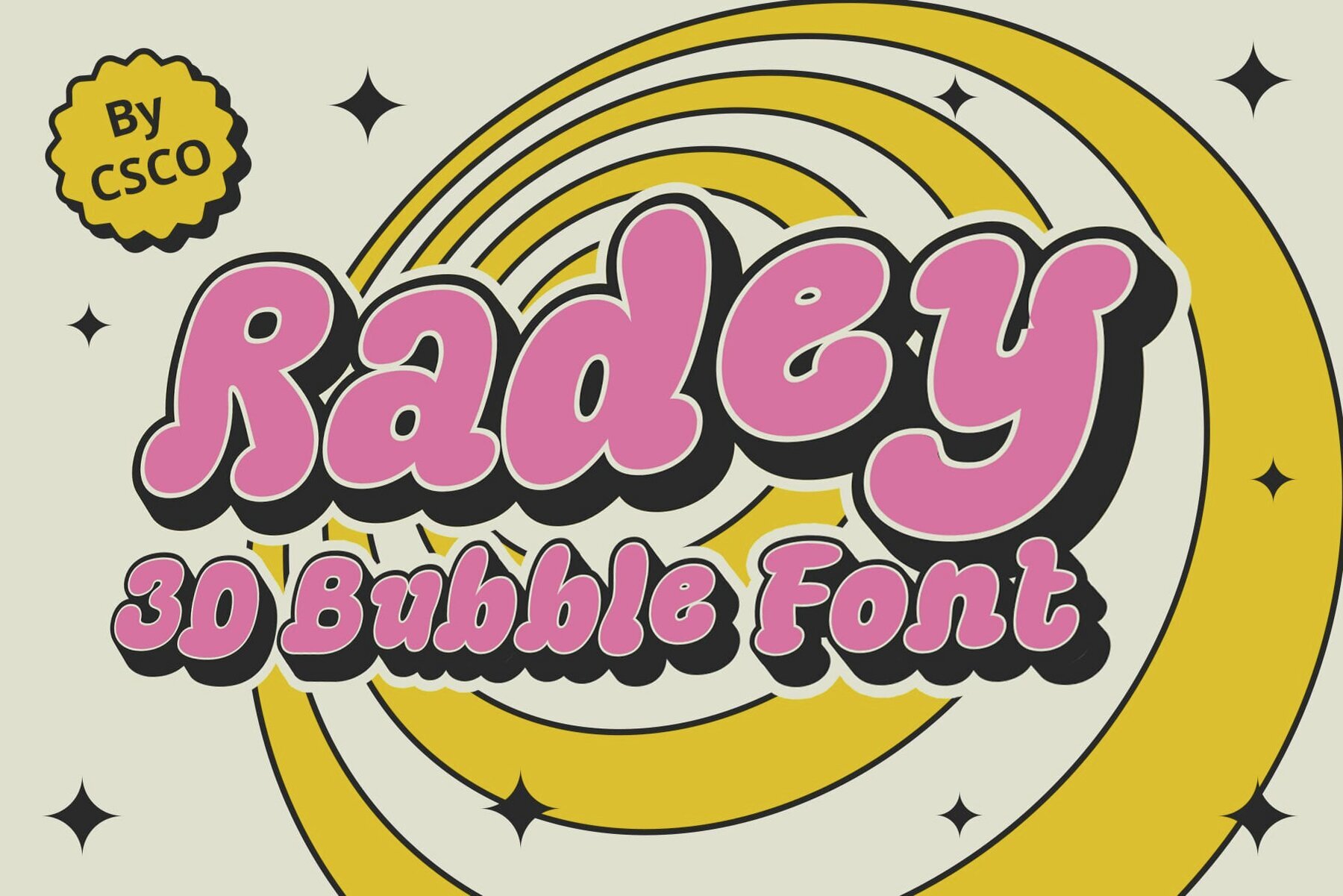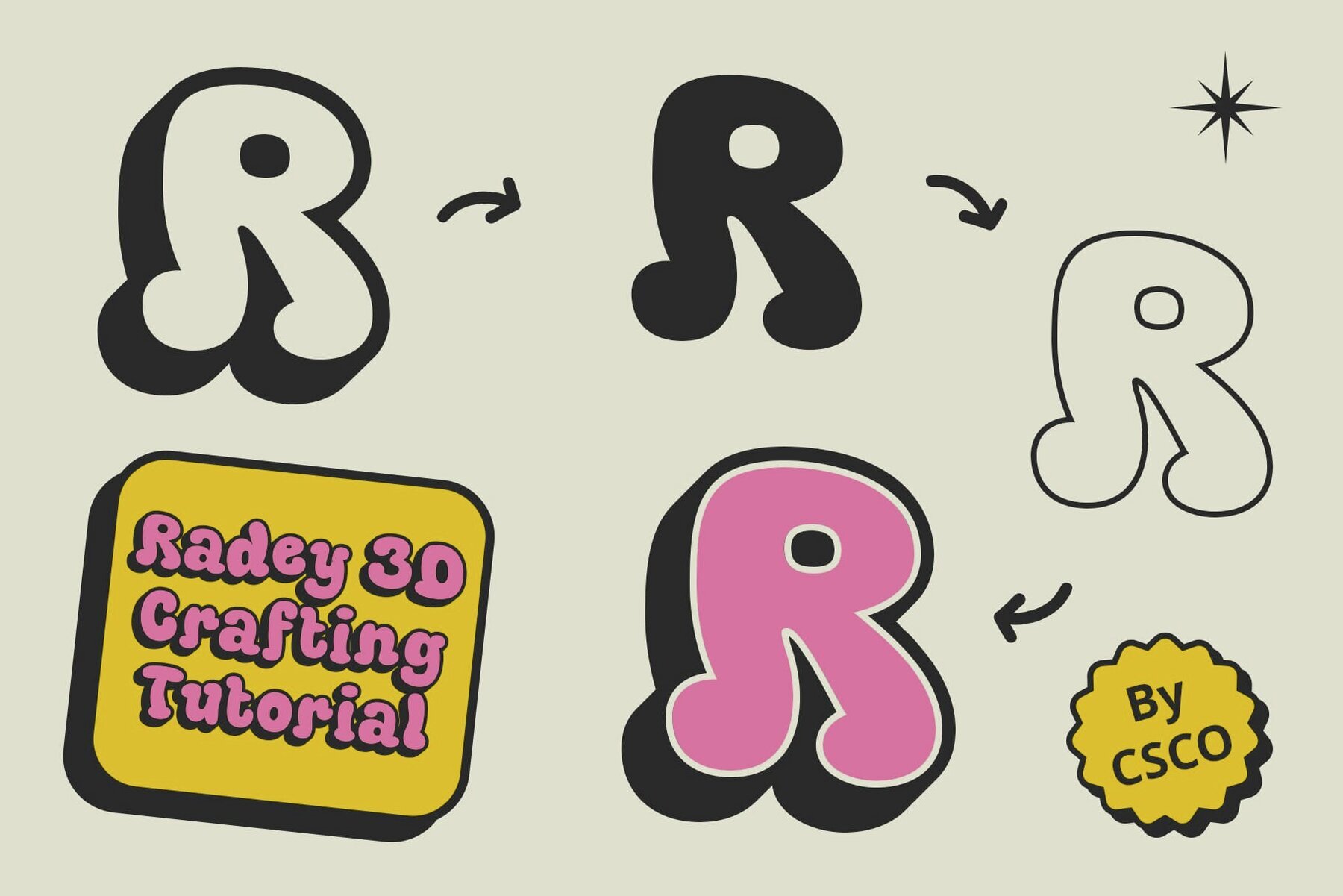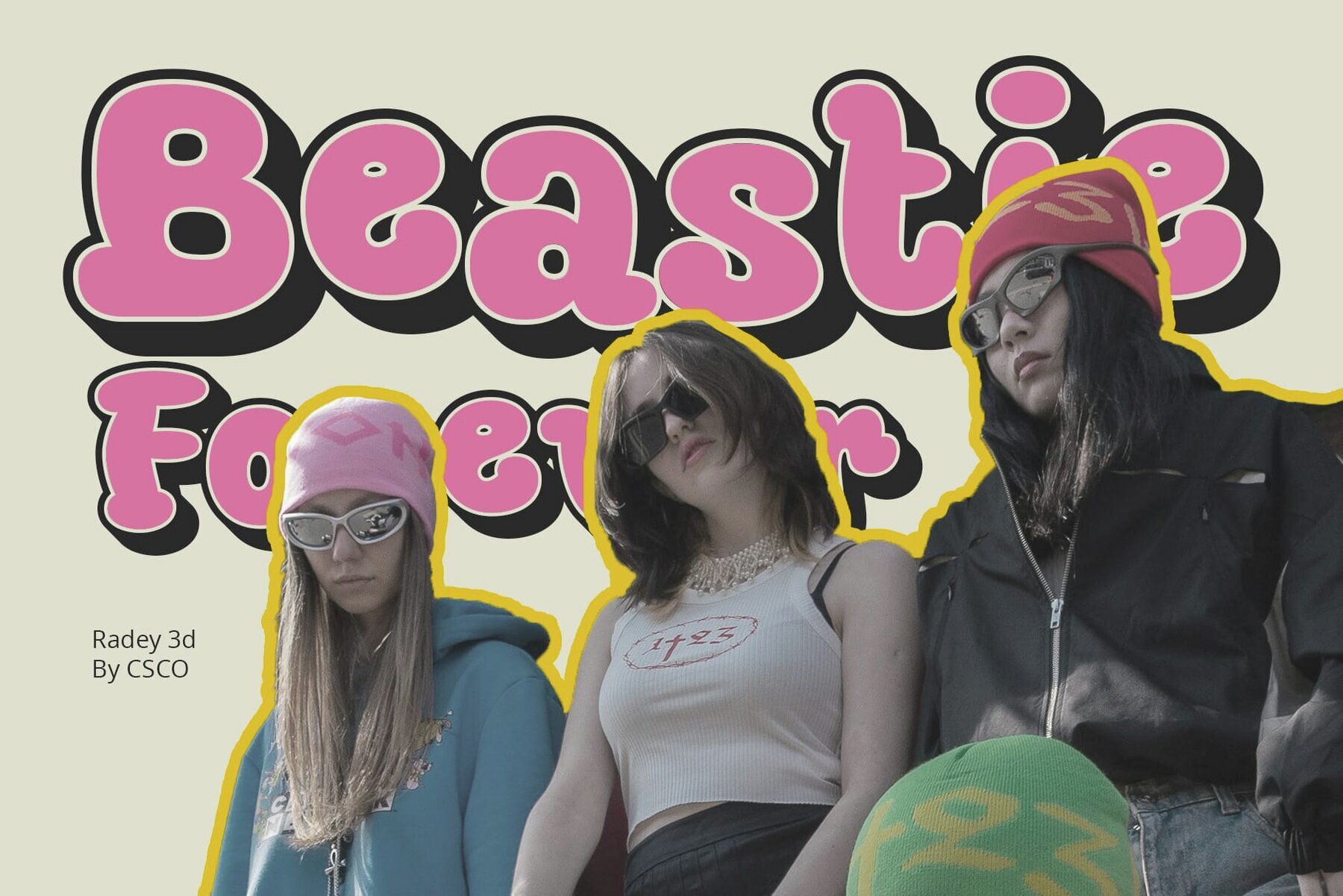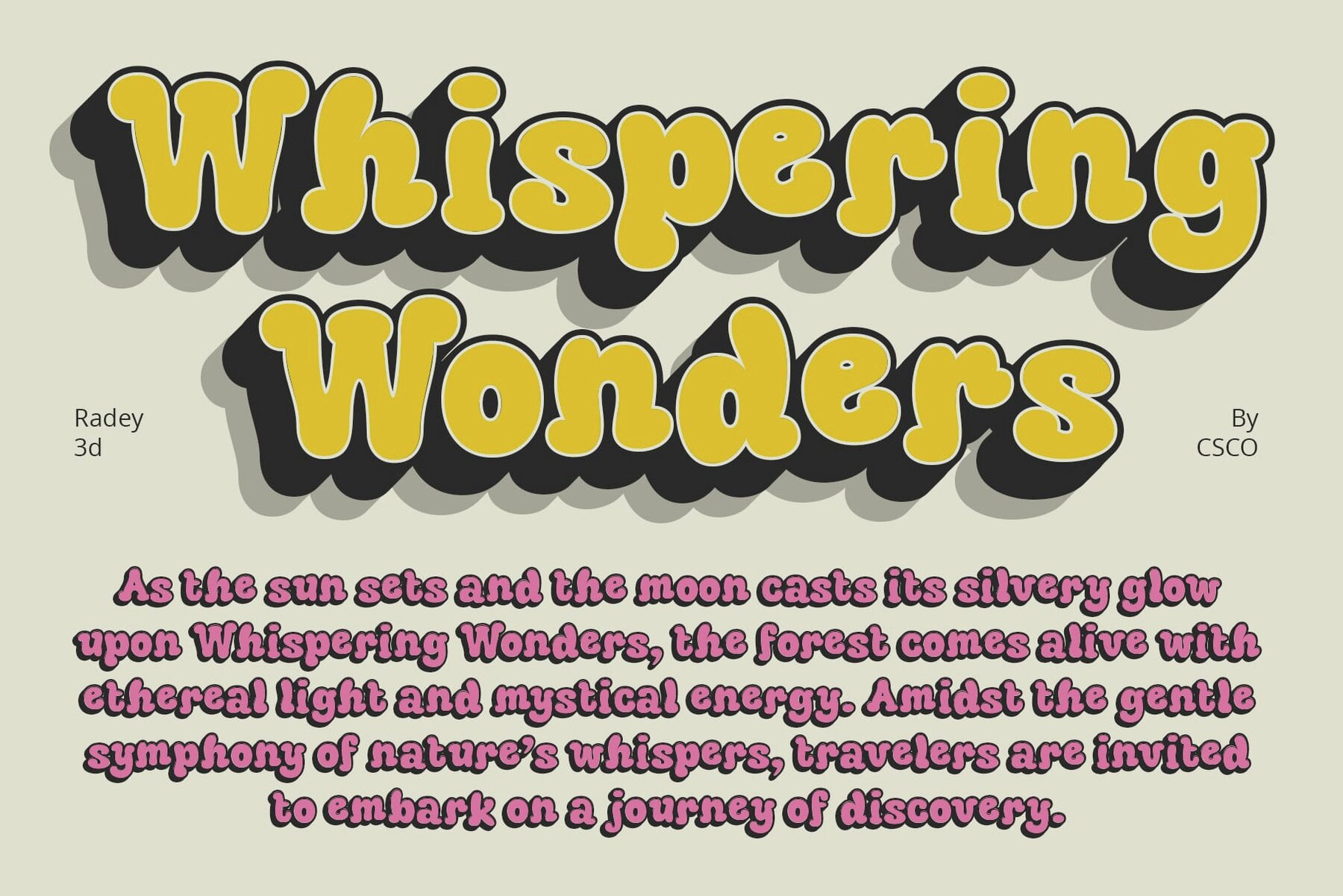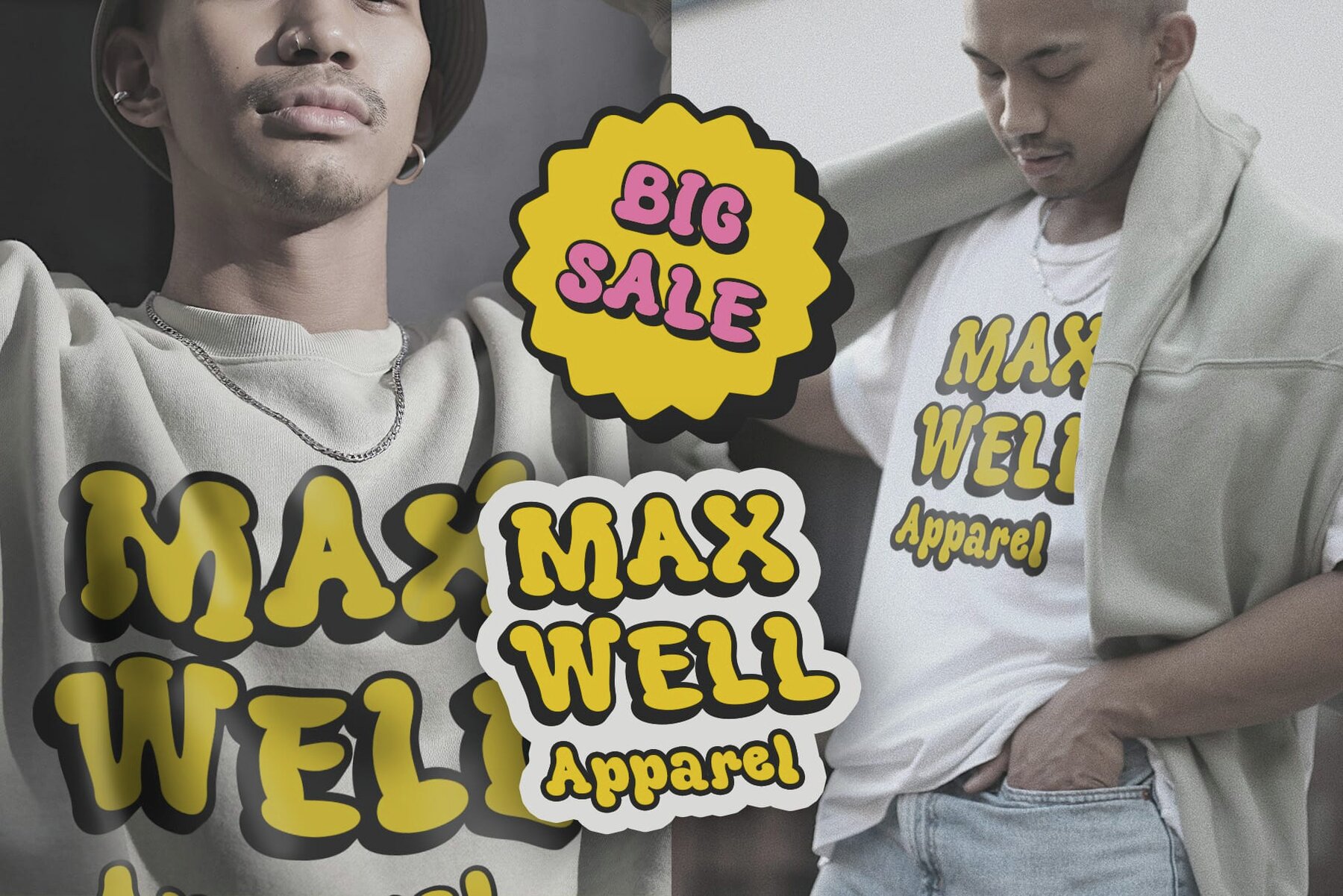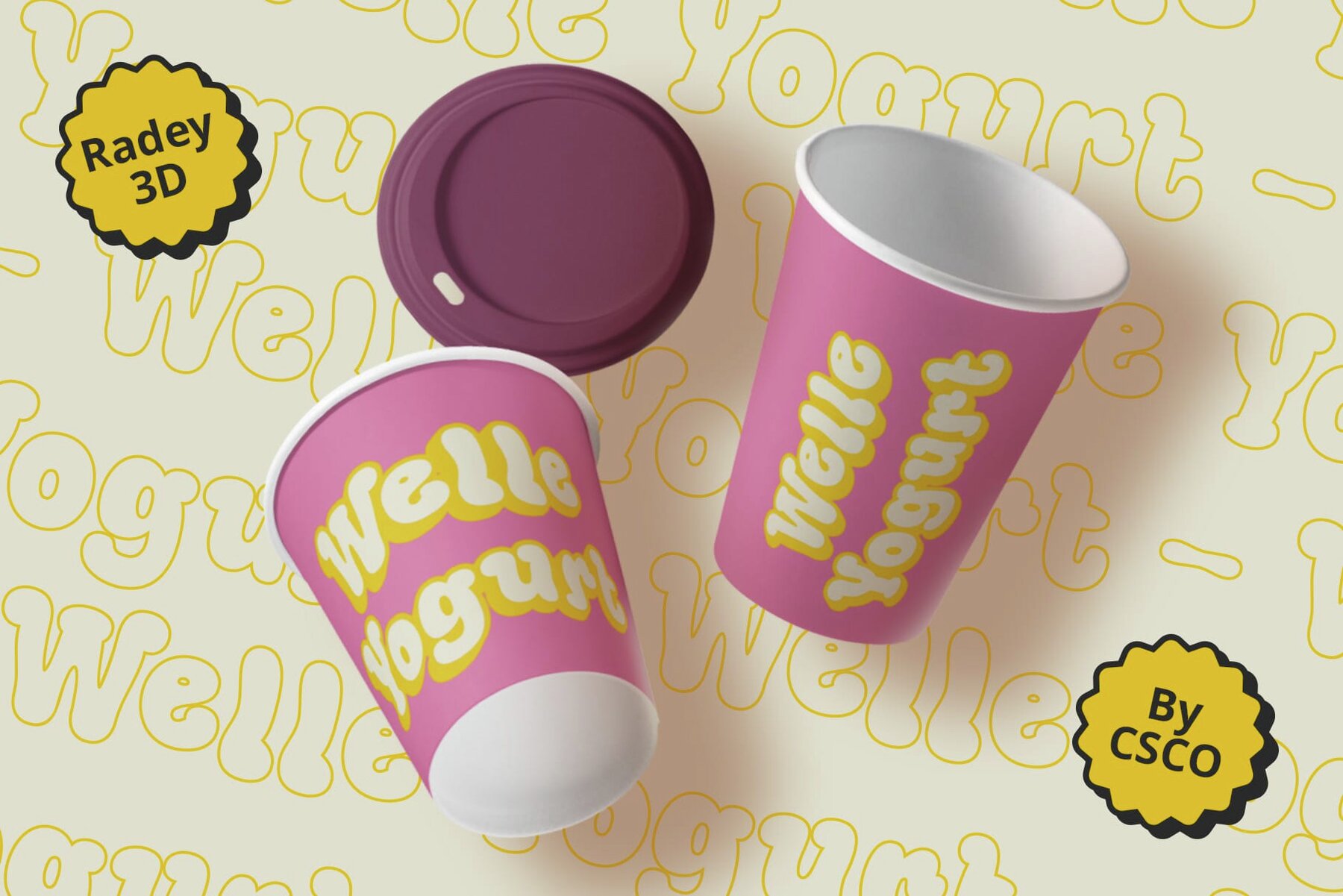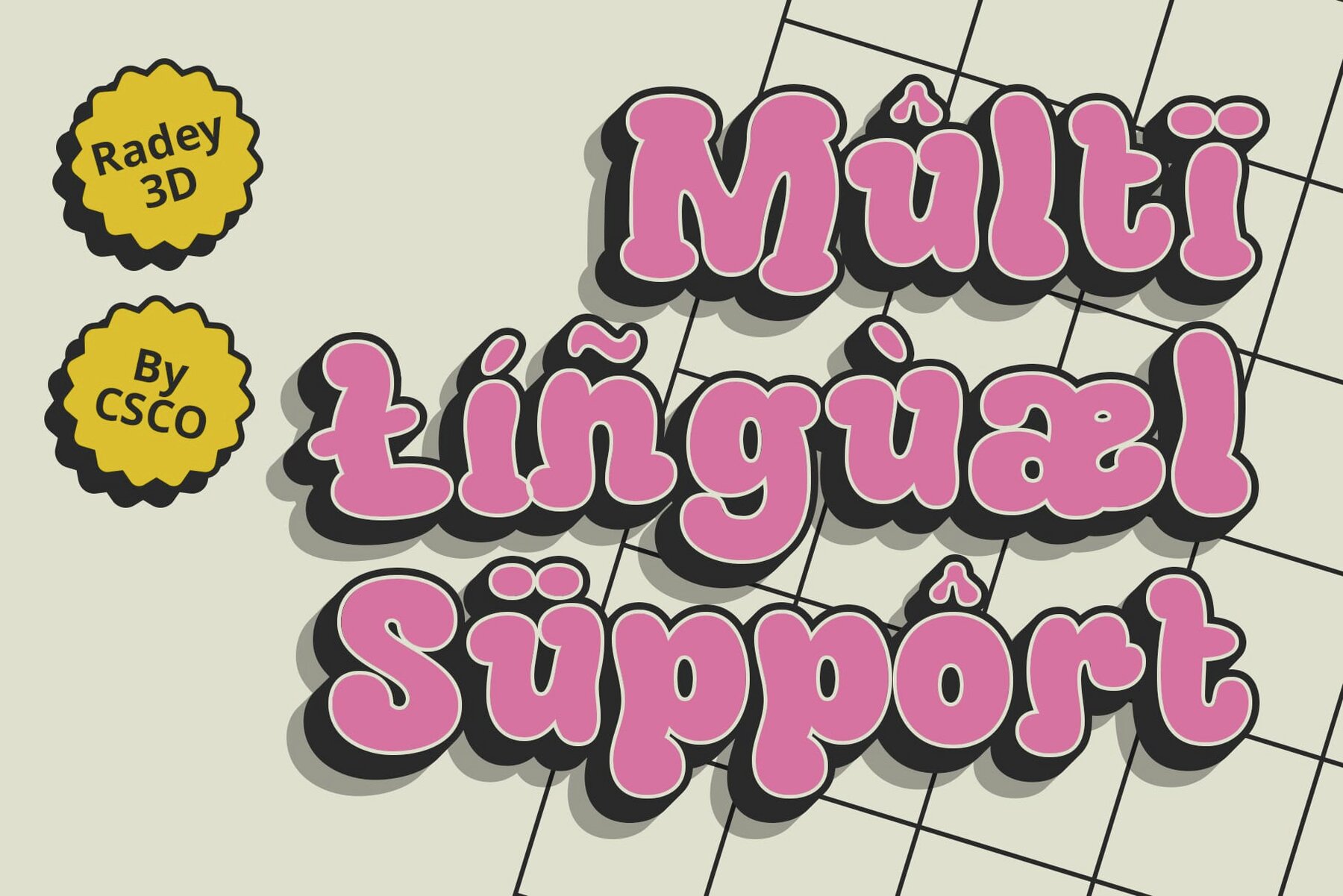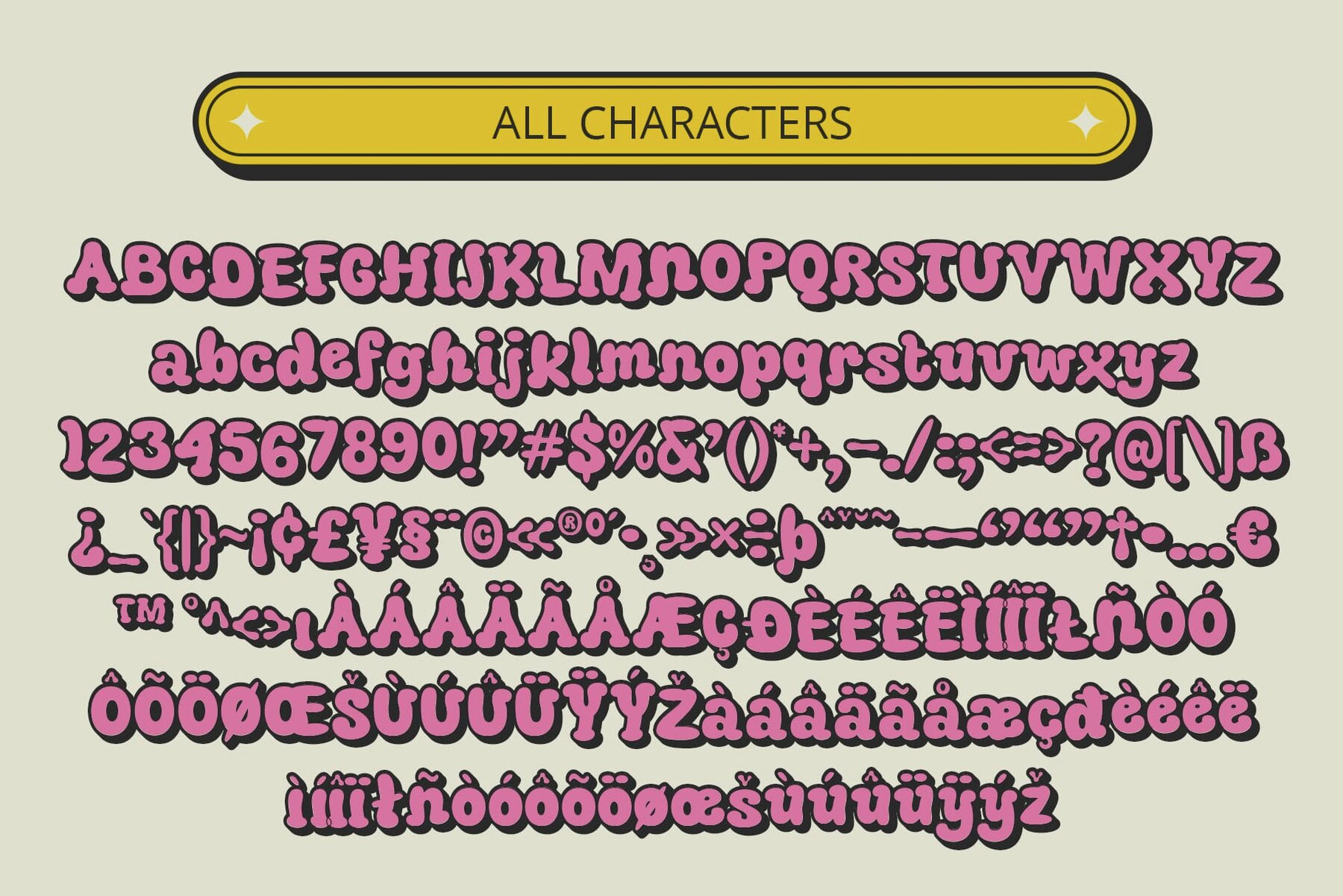
Radey 3D Font
This is a bold and playful display typeface with a hand-drawn, whimsical feel, perfect for casual or creative projects that aim to be approachable and energetic. Its bubbly letterforms exude charm and a sense of informality, making it ideal for designs targeting a young audience or for applications that require a touch of humor and friendliness.